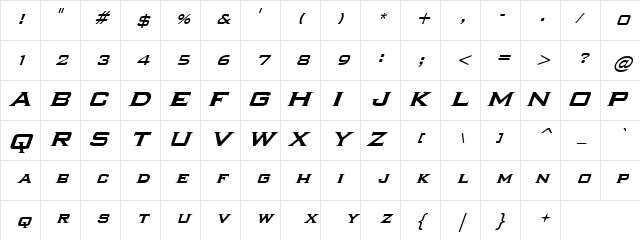
NewLifeItalics
Design Context for NewLifeItalics Typeface
NewLifeItalics offers clean, dependable letterforms without strong stylistic allegiance, making it a practical choice for designers who need flexibility. The slanted form adds forward momentum and visual energy.
Pro Tip: Use NewLifeItalics for emphasis, pull quotes, and subheadings where its slanted energy can add rhythm to the layout.